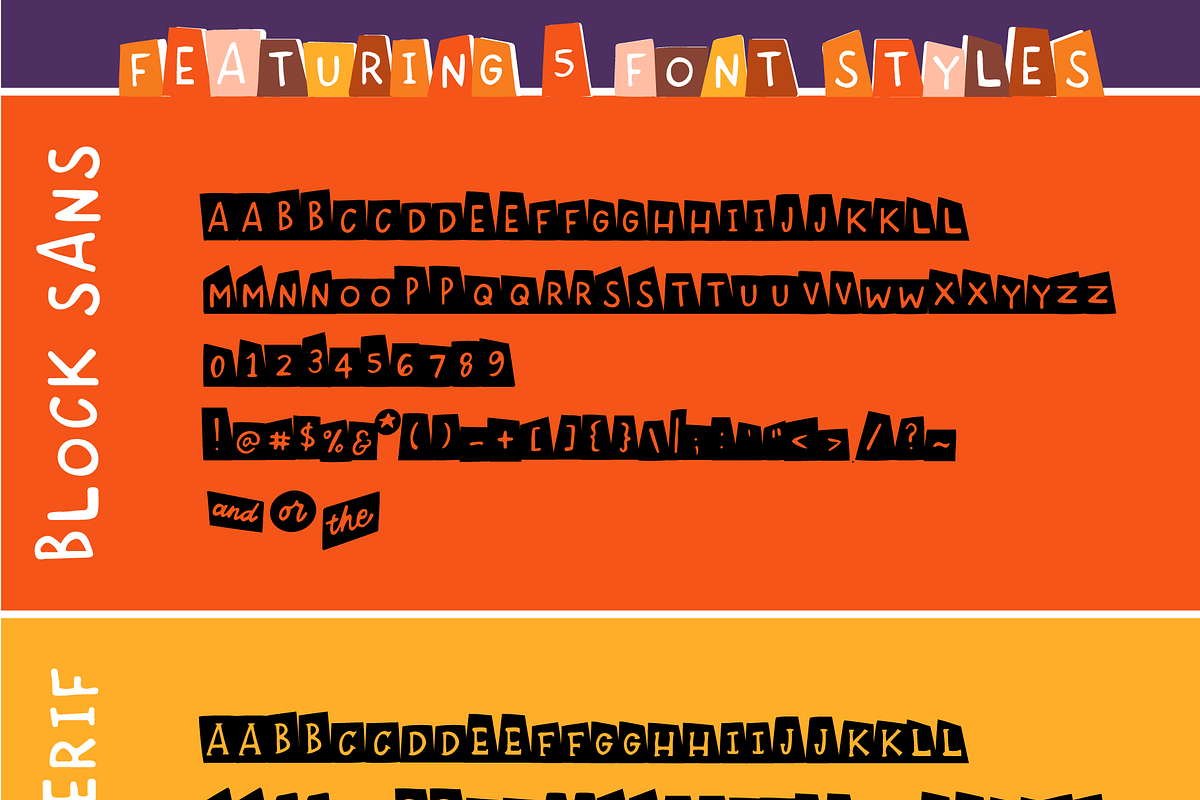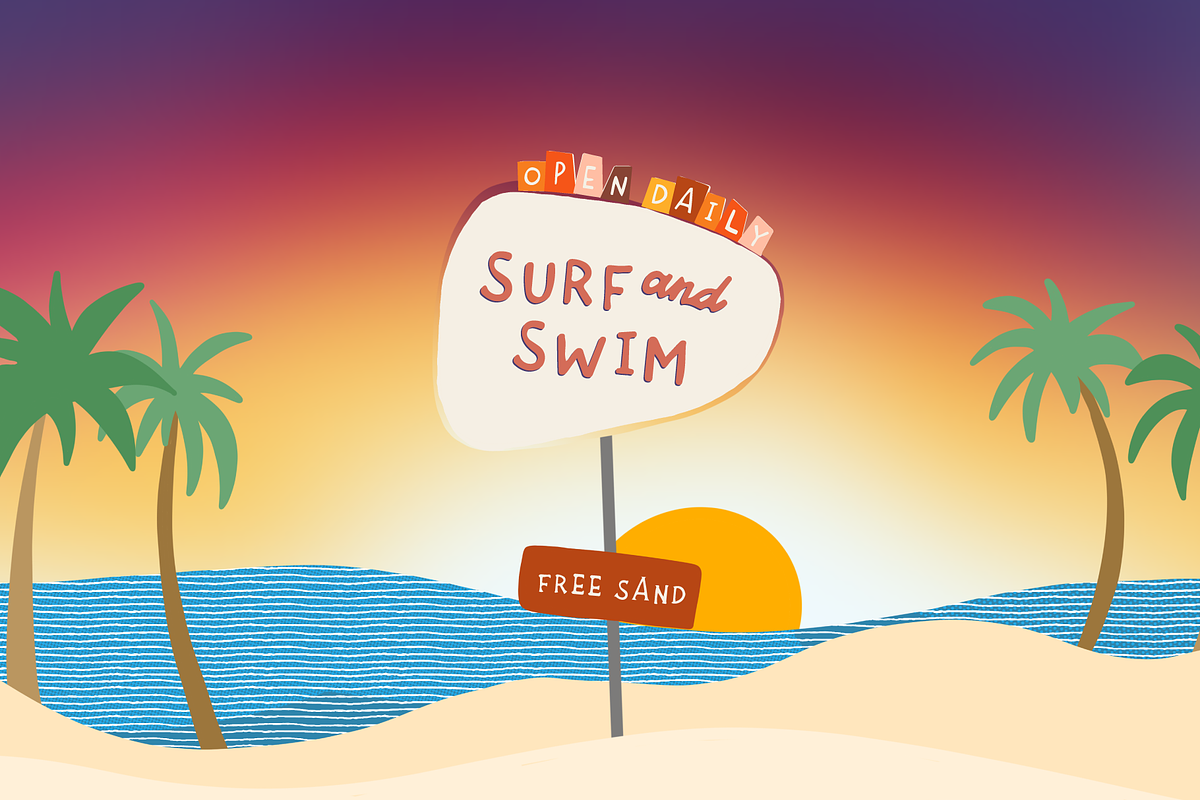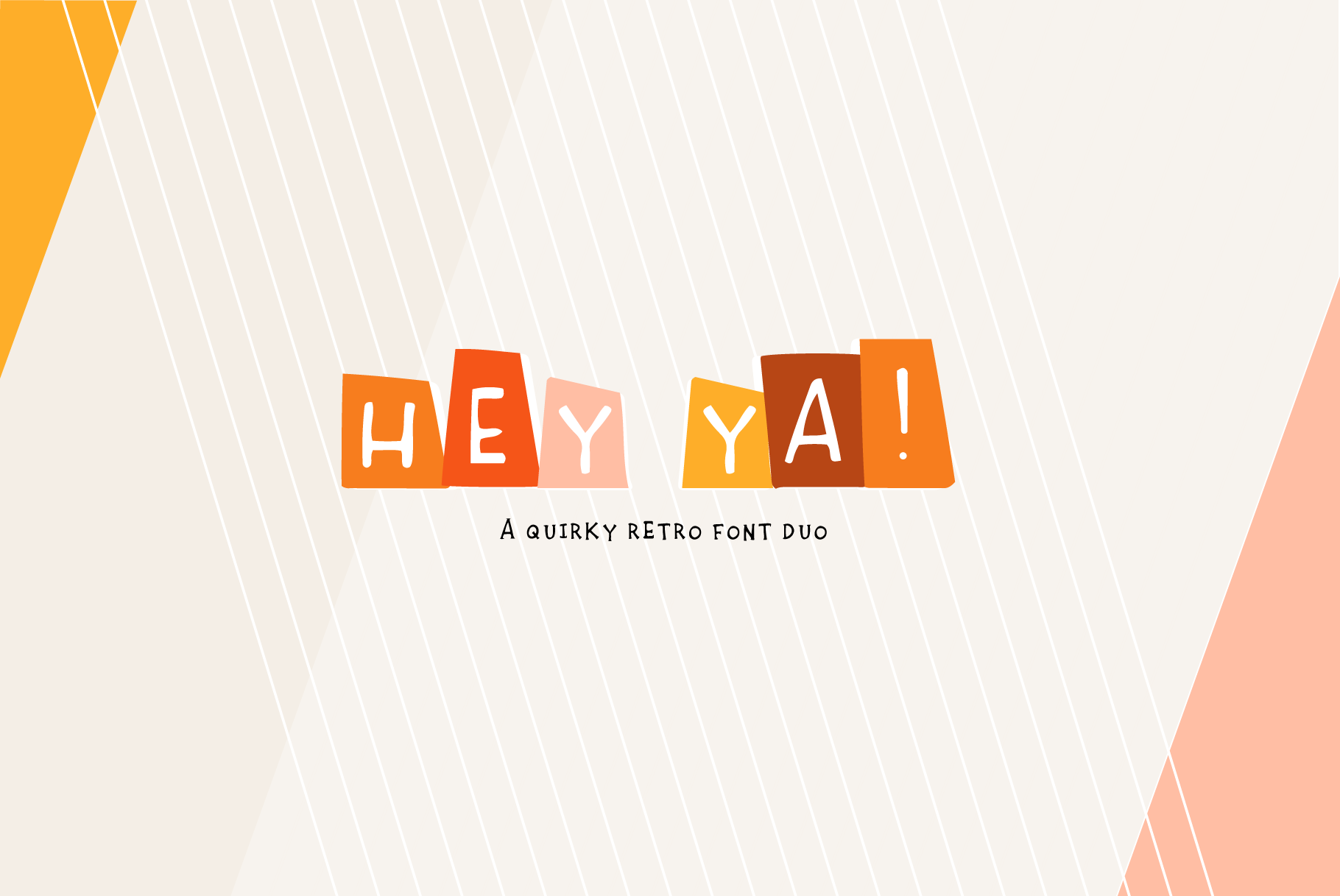
Hey Ya! - A Retro Block Font Duo
Inspired by the quirkiness of OutKast's Hey Ya! track, this hand-drawn retro block font duo will have you ready to turn up the funk on your next project.
EACH STYLE INCLUDES
- 26 uppercase letters
- 10 numbers
- 23 punctuation marks
- 6 alternates
- 2 ligatures.